Booklet by Willoughby Design Showcases 6 Classic Typefaces
Neenah recently released a sweet new promotional project by Willoughby Design that beautifully showcases six classic typefaces. The 9.5″ x 12″ booklet—called “Fresh Takes on Classic Type”—not only contains 6 spreads of lovely graphic work, but also a fun little interactive experience associated with each typeface.
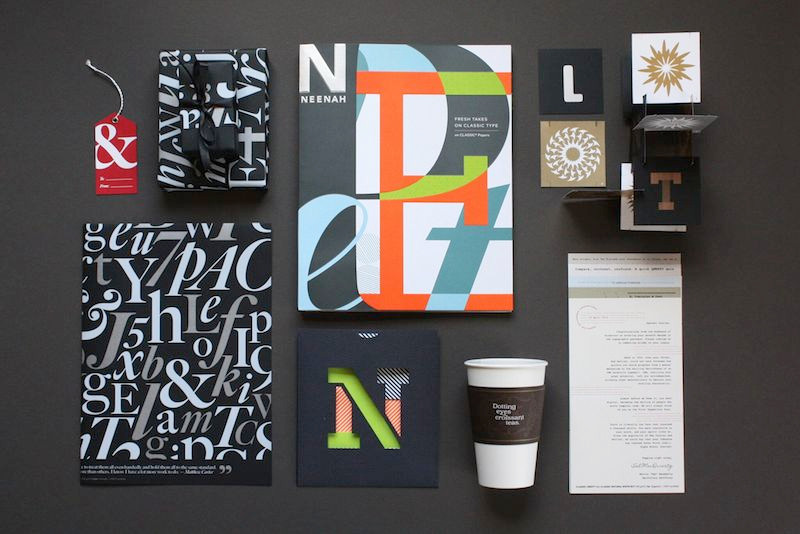
PRINT got the chance to run a few questions by Ann Willoughby about the project:
What was it that Neenah wanted you to achieve with the design of the promotion? (e.g. what was your brief/goal?) How does your design solution align with the brand in the finished result?
Neenah initially asked us to identify 10 classic typefaces that would pair with “The Perfect Ten” — the 10 featured colors in the Neenah CLASSIC® palette. The audience is primarily designers so we wanted to find a way to engage them in a fresh way. By focusing on contemporary typography designers, we were able to tell the story of how new digital typefaces evoke classic analog printing technologies while freeing designers from the limitations of traditional typesetting. Once the direction was approved, we discovered that most of The Classic Ten could be featured with six stories.
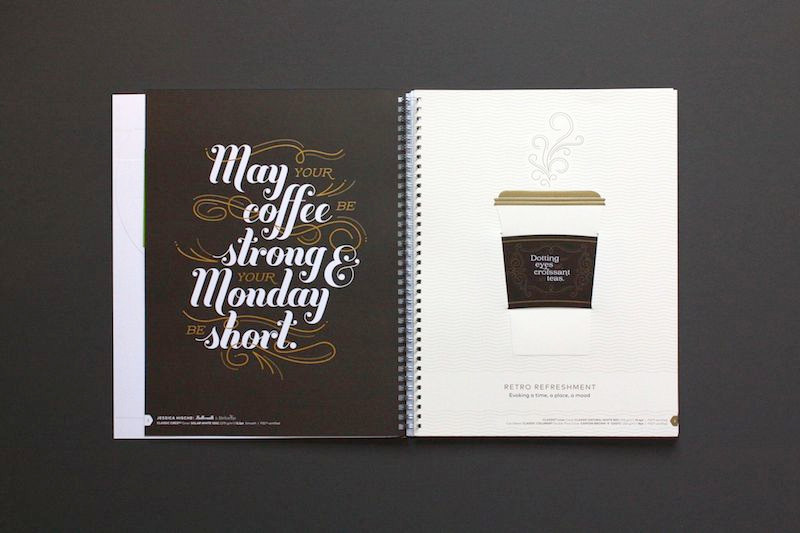
Typeface: Buttermilk & Brioche by Jessica Hische @jessicahische http://jessicahische.is/awesome
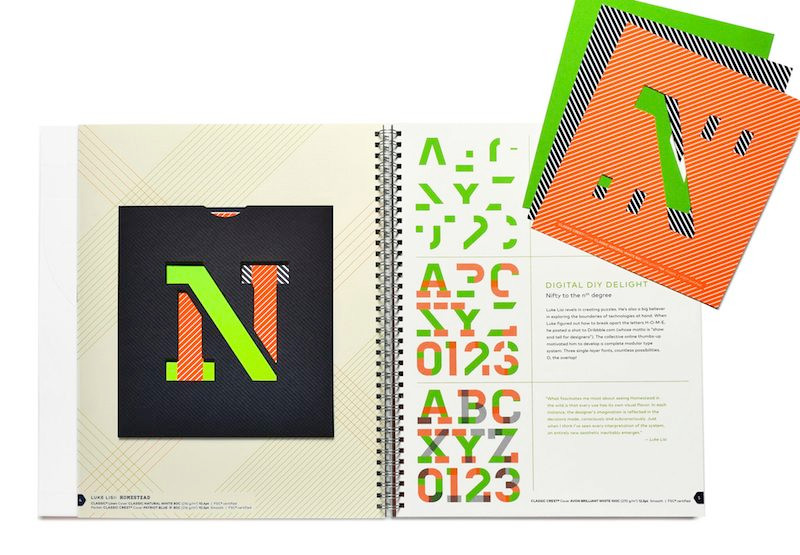
Typeface: Homestead by Luke Lisi @lisidesign https://dribbble.com/lisidesign
How did the paper play into the design? (e.g. is it integral to the design?) And, what was the thinking behind which papers went with which designs?
We wanted to showcase “The Perfect Ten,” a selection of 10 Neenah CLASSIC colors that unifies the four CLASSIC brands (CLASSIC CREST®, CLASSIC® Linen, CLASSIC® Laid, and CLASSIC COLUMNS® Papers). Telling the story while featuring four brands, ten colors and various weights took some creative finesse. It was a complex challenge to design a book where the paper choices on each spread felt natural and not forced. For example, the typewriter spread features five writing and text weights, five colors and several finishes. The smaller “letters” appear to be coming out of the typewriter and each can be removed. Each letter tells a delightful story about the history of the many typefaces designed for the typewriter.
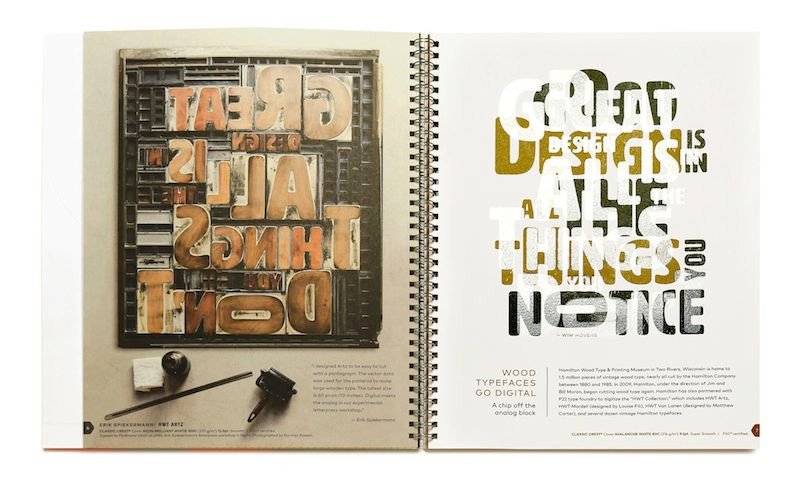
Typeface: HWT ARTZ by Erik Spiekermann @espeikermann http://spiekermann.com/en/
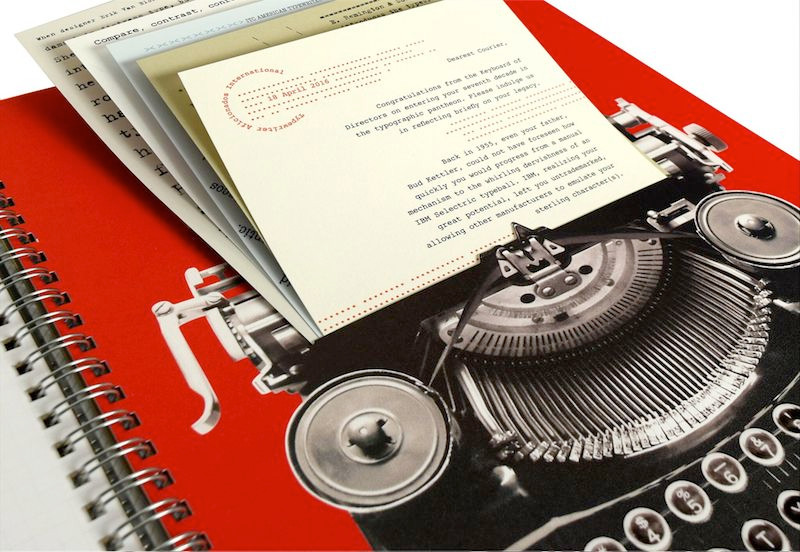
Typeface: Various typewriter fonts
What was your favorite part of working on this project?
Without a doubt, our favorite part was the collaboration and thrill we shared as each spread came to life. Working through the story while making just the right paper and construction choices was a challenge. Angela Synder, Senior Designer at Willoughby Design, headed up the collaboration and made sure every decision was made with creative deliberation.
Typeface: Big Caslon by Matthew Carter https://www.myfonts.com/person/Matthew_Carter/
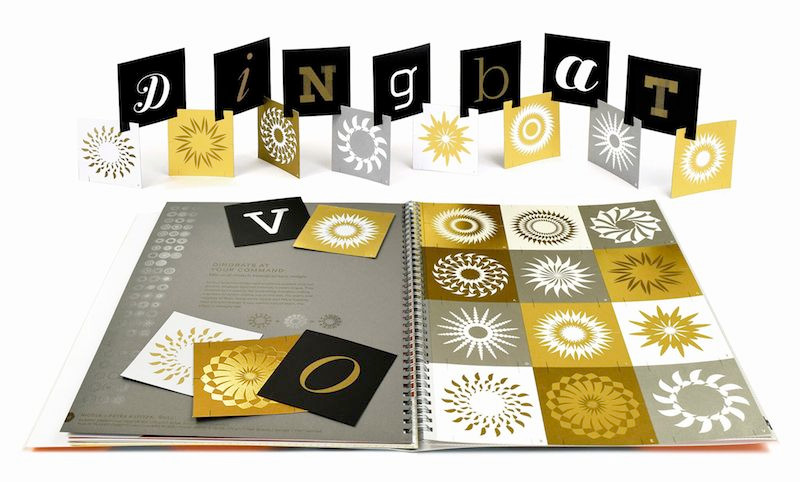
Typeface: Roto by Nicole and Petra Kapitza @kapitza http://www.kapitza.com/
How did you go about selecting the typefaces—the “new classics”?
We started with about 25 designers/typefaces that ranged from classic to contemporary. There were several designers that we wanted to include from day one: legendary type designers like Matthew Carter and Erik Spiekermann. We also sought some diversity and thus selected type by female designers Jessica Hische and Nicole and Petra Kaptiza. And we wanted to include lesser-known designers like Luke Lisi who decided to share his typeface through the open source economy. Alyson Kuhn, our writer partner, suggested the typewriter spread as it perfectly demonstrated a return to our analog past through reimagined digital typewriter typefaces.
How long did it take to put this book together?
The Neenah project started in January 2016, it was a 5-6 month process.
What unifying elements can be found throughout the booklet to tie the different designs together?
Color, type and layout were carefully integrated into the design to unify the overall impact. Most of the spreads also stand on their own in harmony with the typefaces that were used. Interactivity is the one unique device that unifies the various spreads. Almost every spread has some tactile element. Buttermilk and Brioche features a coffee sleeve that is reusable. HWT ARTZ makes a great desk poster. Homestead has pullout letterforms. The typewriter spread has five pages that are a delight to remove and read. Big Caslon features a foldout piece of wrapping paper, and the dingbats are perforated so that the reader can build an Eames-inspired card tower. There is a sense of discovery and joy throughout the book.